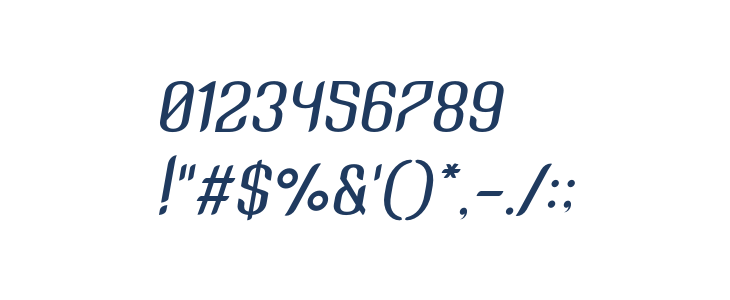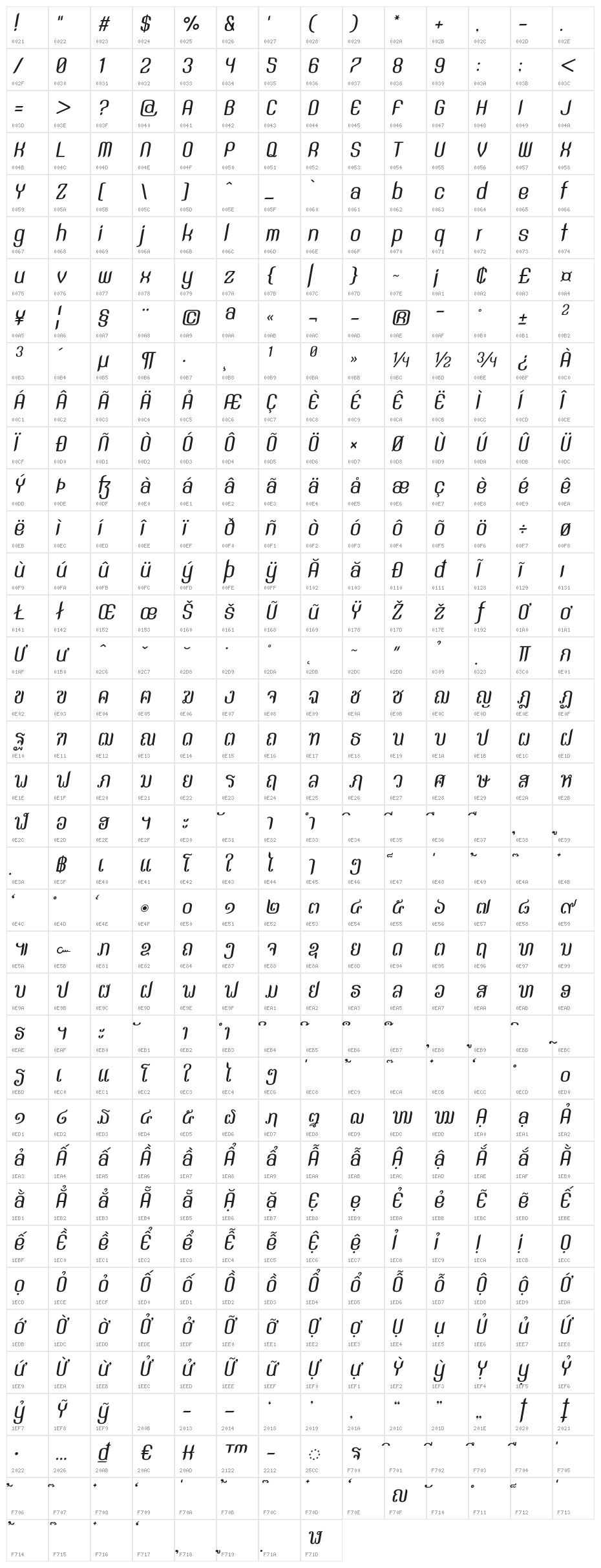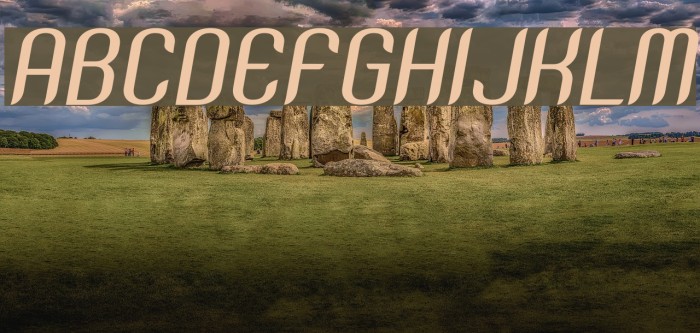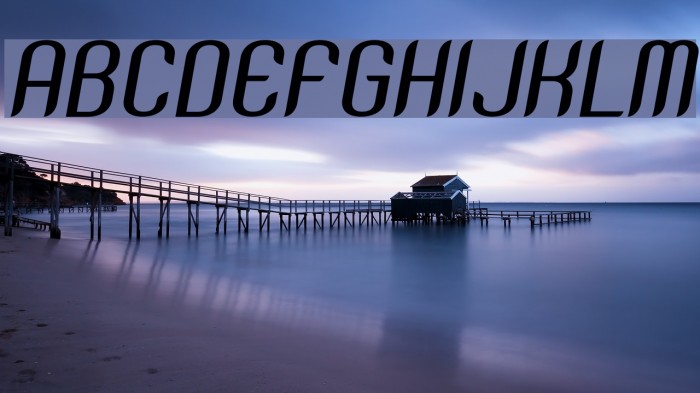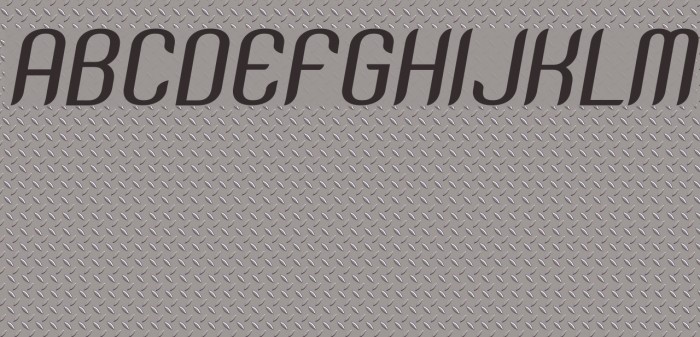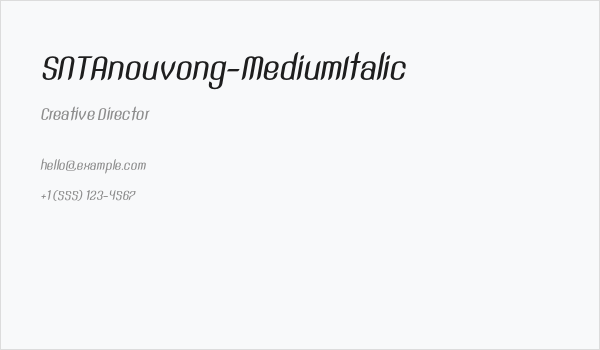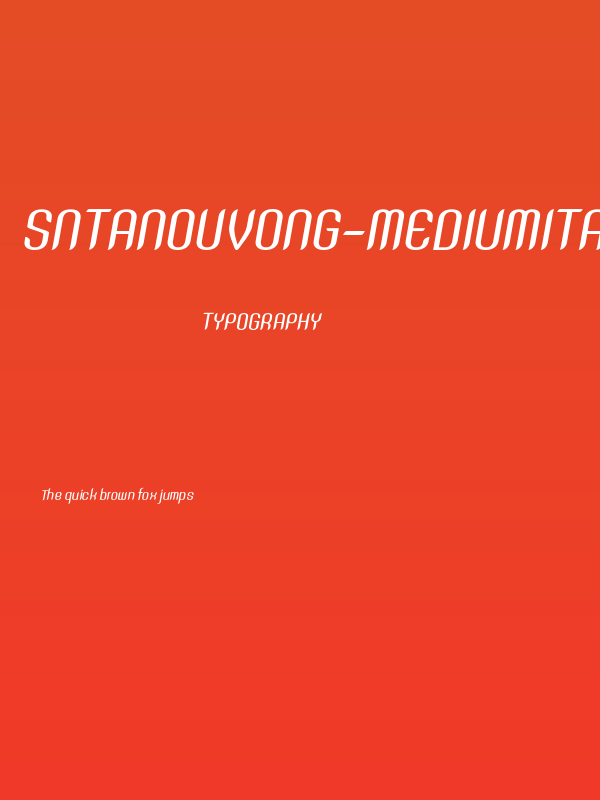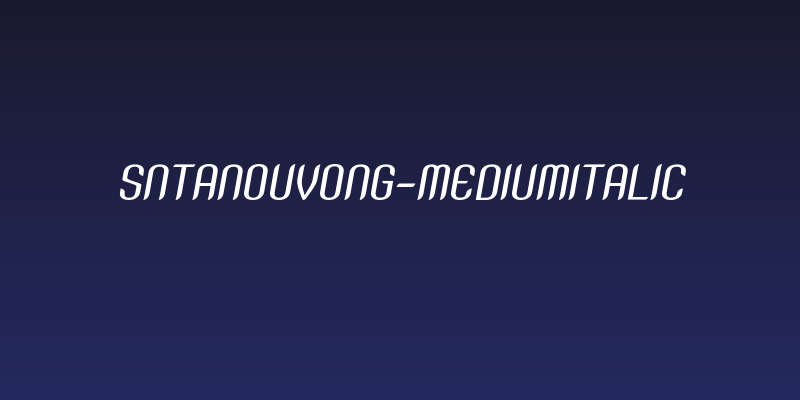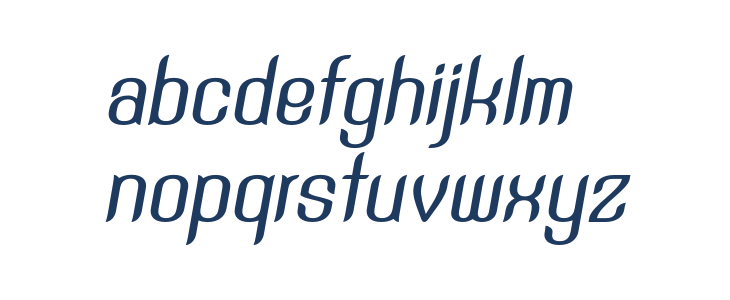
SNTAnouvong-MediumItalic Font
SNTAnouvong-MediumItalic Description
This font features a sleek and modern design with a medium weight and italic style. The characters are slightly condensed, giving it a streamlined appearance. The strokes are consistent, with a medium contrast that adds a touch of elegance without being overly dramatic. The font maintains a smooth flow across both uppercase and lowercase letters, as well as numerals and special characters. Its overall style is contemporary, making it suitable for a variety of design applications. The character spacing is normal, ensuring readability while maintaining its stylish look.
Use CaseHeadlines, Logos, Branding
Proposed ProjectsIdeal for branding, advertising, and editorial design projects where a modern and stylish typeface is desired.